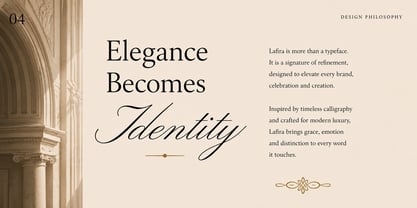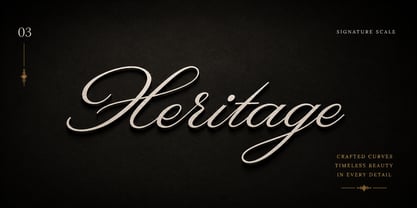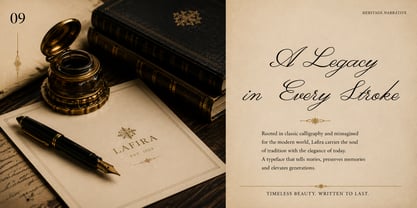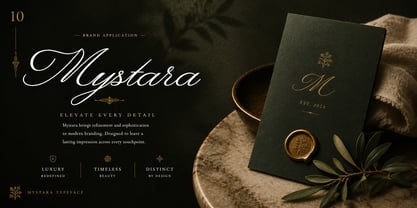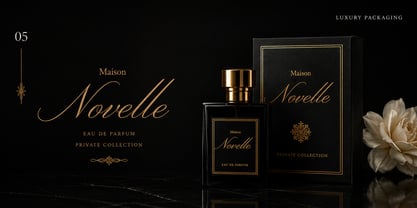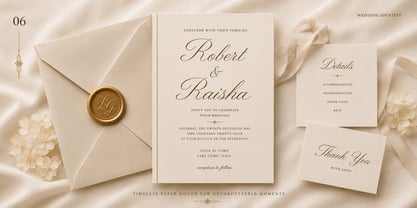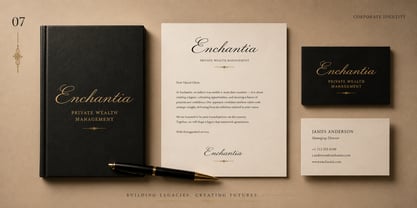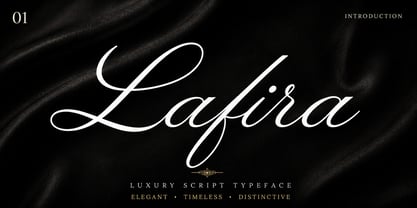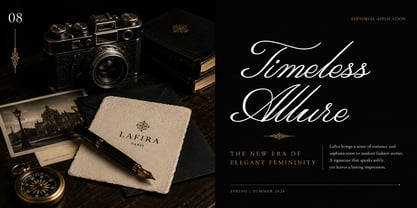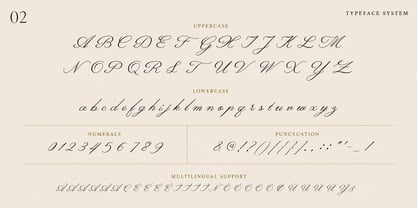
Lafira
by Solutype
The Lafira Font Family was designed by Jony Suharsono and published by Solutype. Lafira contains 1 styles. More about this family
Lafira is a luxurious script typeface that combines timeless calligraphic elegance with modern sophistication. Featuring graceful curves, flowing swashes, and refined letterforms, Lafira is designed to create a striking and memorable impression.
Perfect for luxury branding, wedding invitations, fashion editorials, beauty packaging, logos, product labels, and premium marketing materials, Lafira brings a sense of romance, exclusivity, and effortless style to every design.
Whether you're creating a signature logo, elegant headline, or high-end brand identity, Lafira delivers a beautiful balance of sophistication, charm, and readability that elevates any creative project.
Designers: Jony Suharsono
Foundry: Solutype